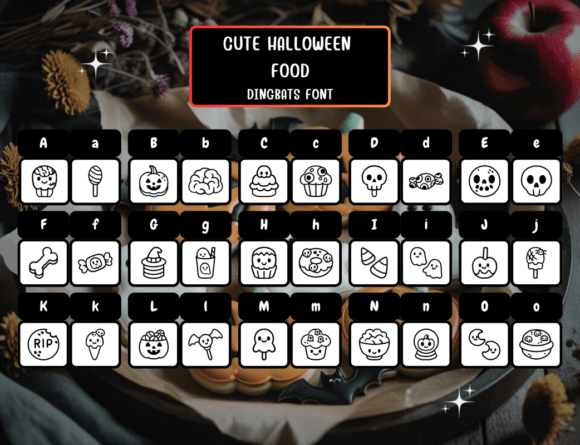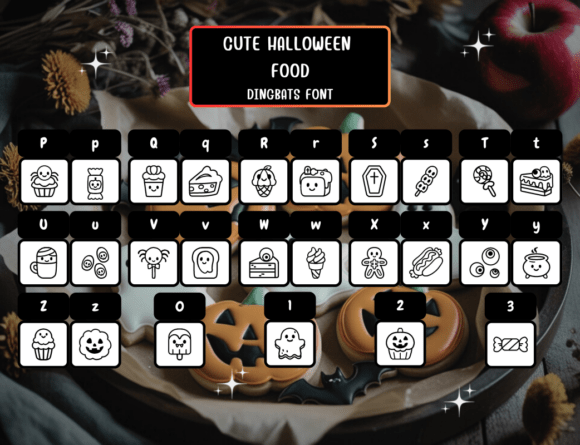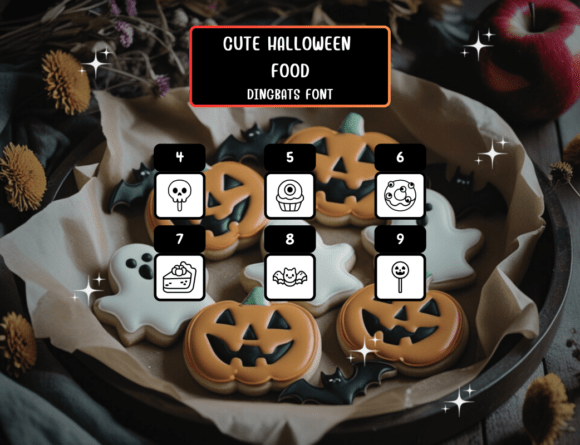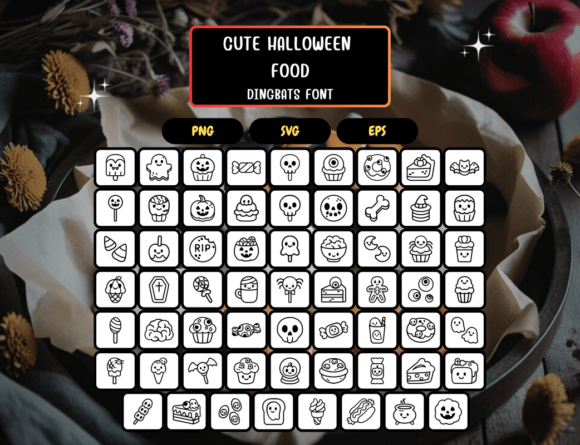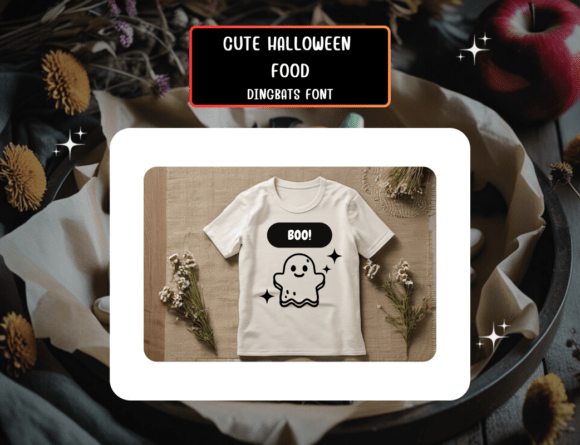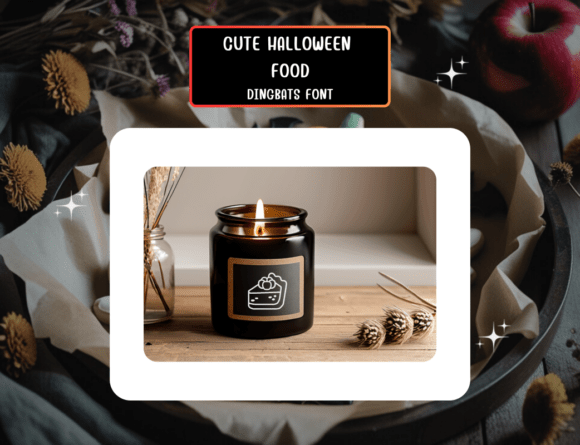
Cute Halloween Food: A Playful Dingbat Font for Seasonal Designs
Are you looking for a fun and festive way to add some Halloween spirit to your designs? Look no further than the Cute Halloween Food regular font, a delightful collection of Halloween-themed food icons in a cute and whimsical style. This playful dingbat font is perfect for designers, crafters, and party planners who want to add a touch of seasonal charm to their projects.
A Delightful Collection of Halloween Food Icons
The Cute Halloween Food font features a wide range of Halloween-themed food icons, including candy, ice cream, pie, and more. Each glyph is carefully designed to combine spooky elements with adorable treats, many with smiling faces and fun Halloween details. From jack-o’-lanterns made of candy corn to smiling ghosts holding ice cream cones, this font has everything you need to create festive and fun designs.
Perfect for Crafts, Stickers, Invitations, and Party Printables
This font is ideal for a variety of projects, including crafts, stickers, invitations, and party printables. Whether you’re creating Halloween-themed cards, decorations, or party favors, the Cute Halloween Food font is the perfect choice. Its scalable and easy-to-use format makes it easy to incorporate into your designs, and its friendly vibe is sure to delight both kids and adults.
Key Features of the Cute Halloween Food Font
• Halloween-themed food icons: A collection of cute and whimsical food icons with a Halloween twist.
• Playful dingbat font: A fun and festive font that’s perfect for adding seasonal charm to your designs.
• Cute and friendly vibe: Each glyph is designed to be adorable and fun, with smiling faces and fun Halloween details.
• Scalable and easy to use: The font is easy to incorporate into your designs and can be scaled up or down without losing quality.
• Ideal for crafts, stickers, invitations, and party printables: Perfect for a variety of Halloween-themed projects.
Design Ideas Using the Cute Halloween Food Font
• Halloween party invitations: Create festive and fun invitations that set the tone for a spooktacular party.
• Halloween-themed cards: Design cute and playful cards for friends and family.
• Halloween decorations: Use the font to create festive decorations, such as garlands, banners, and signs.
• Halloween party favors: Design fun and playful party favors, such as stickers, coloring pages, and treat bags.